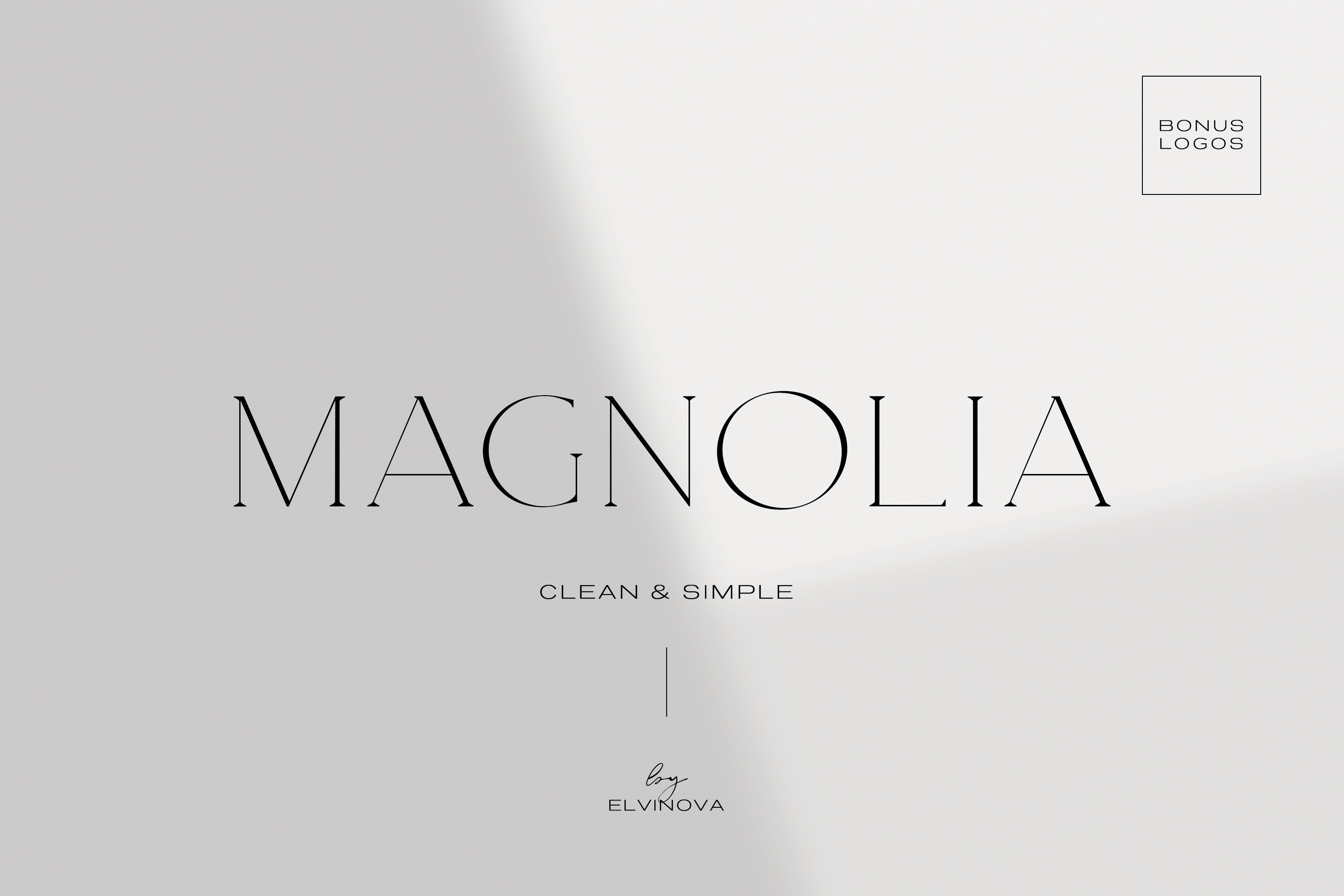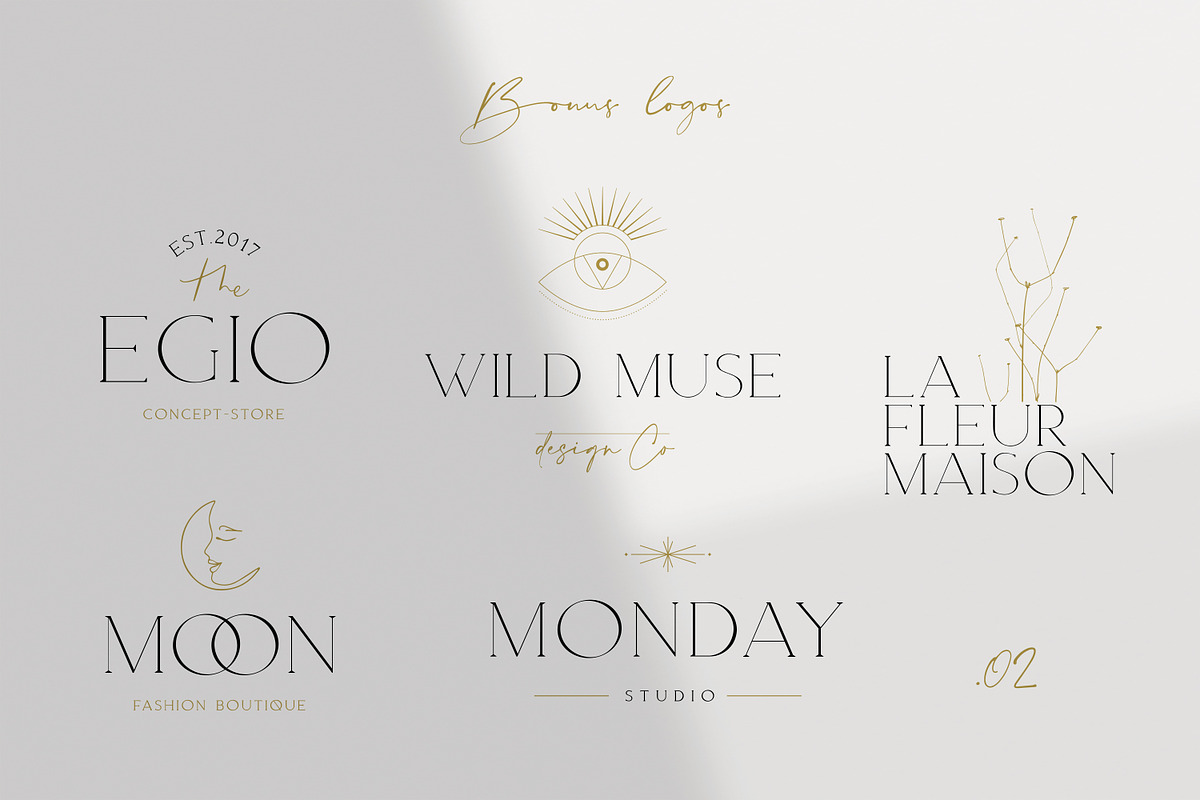
Magnolia. Modern Serif Font
Magnolia is a modern serif typeface. Clean, delicate, classic. Elegant font with feminine bonus logos. Pairing script font is https://creativemarket.com/elvinova/4844747-Fine-art-font-duo